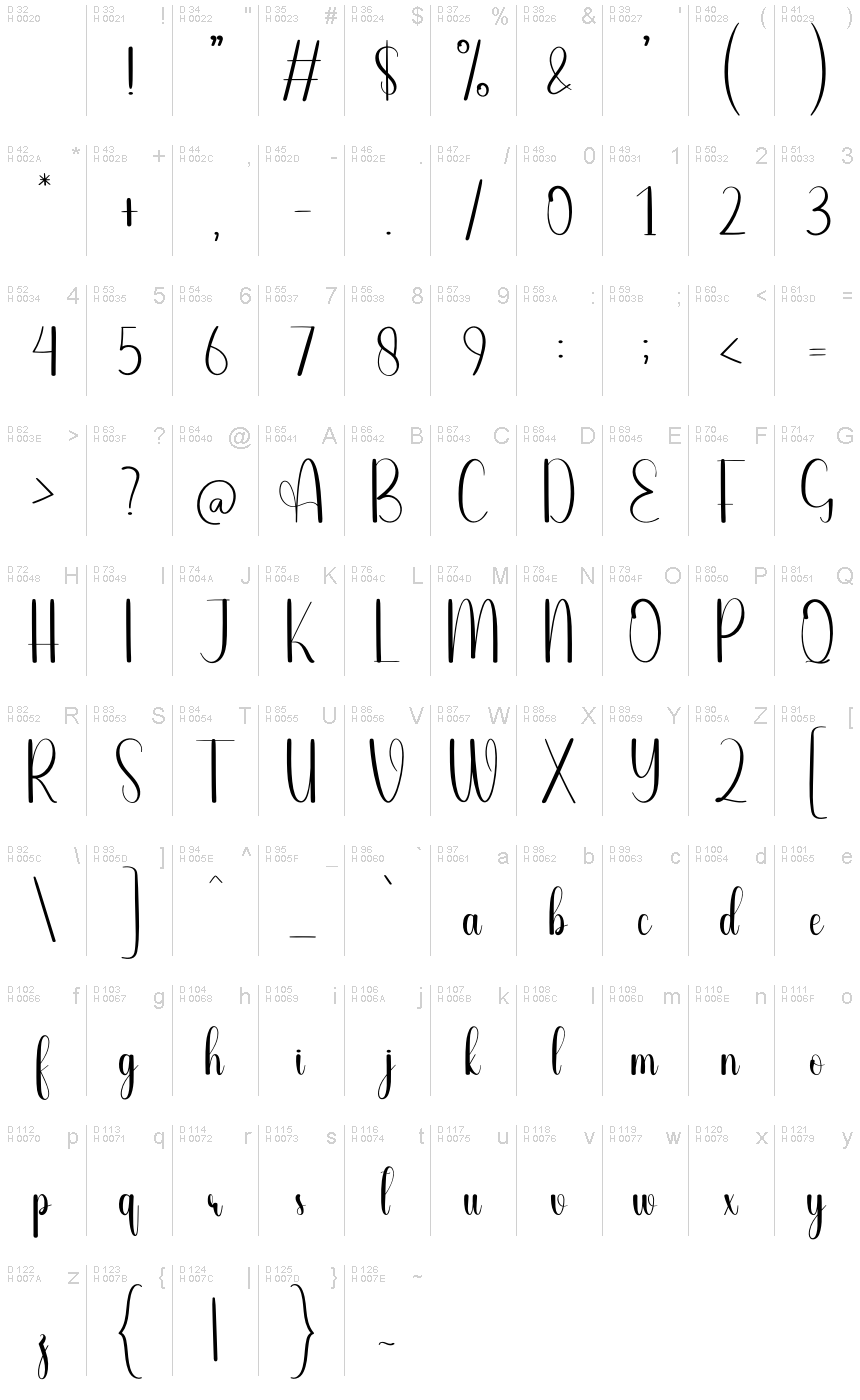
Cleaning
Cleaning is a delightful handwritten display font crafted by Andi Moz. This charming typeface exudes a sweet and friendly vibe, with its playful strokes and organic curves. The condensed width adds a touch of whimsy, making Cleaning an ideal choice for adding a personal, handcrafted feel to any design.
Cleaning's versatility shines through its ability to seamlessly integrate into a variety of design contexts. From wedding invitations to greeting cards, this font brings a touch of warmth and personality that can elevate the aesthetic of any project. Its playful nature makes it a perfect fit for designs that require a fun, approachable touch, such as branding for small businesses, social media posts, or even children's educational materials.